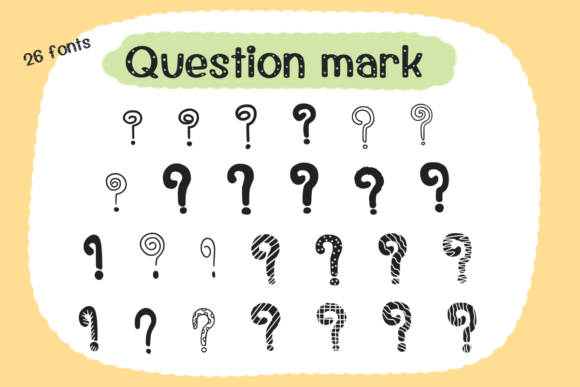
Introduction to Question Mark Font
Question Mark is a fun and useful hand-drawn dingbats font made entirely of question marks.
Add it to your creative ideas, and make your designs outstanding .
Key Features of Question Mark Font
Why Choose Question Mark Font?